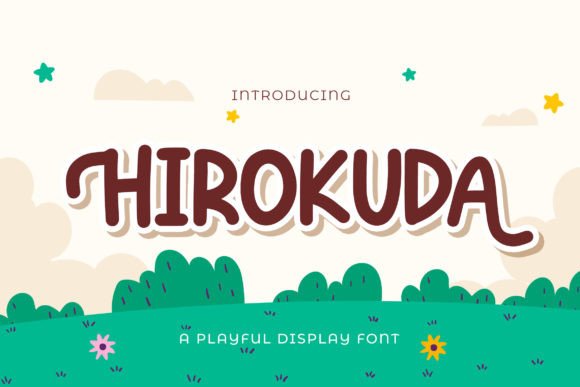
Buckle up for a typographic thrill ride with Hirokuda, the ultimate display font that's brimming with character and charm. Designed by the talented minds at StringLabs, Hirokuda is not just a font; it's a playful journey into the realm of imagination.
Picture this: you're working on a captivating children's book, and you need a font that dances off the page with energy and vibrancy. Look no further than Hirokuda, with its whimsical curves and cheerful letterforms, it will transform your stories into magical adventures that leap from the pages.
Or perhaps you're creating posters for a school project, aiming to capture the attention of your audience. Hirokuda's infectious personality will do just that. Its bold strokes and playful characters will make your posters pop with an energy that's impossible to ignore.
But Hirokuda's talents don't stop there. Its versatility extends to branding and marketing, where it can inject a touch of whimsy and fun into your designs. Hirokuda has a knack for grabbing attention, making it the perfect choice for logos, packaging, and social media graphics that demand to be noticed.
With Hirokuda in your creative arsenal, you'll find endless opportunities to captivate and delight your audience. Whether you're designing for print or digital media, Hirokuda's charm will shine through, leaving a lasting impression on all who encounter it.
So, embark on this typographic journey with Hirokuda, the font that sparks imagination and ignites creativity. Let its playful nature add a dash of magic to your projects and watch as they come alive with an energy that's simply irresistible.